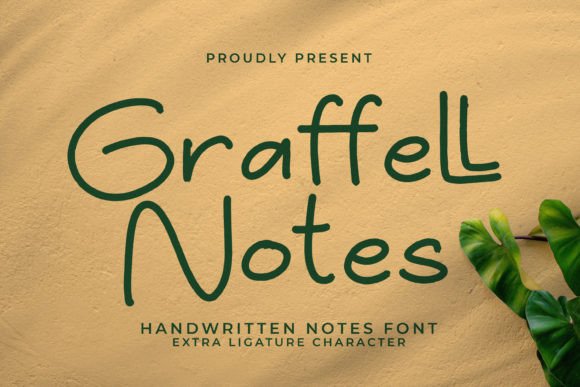
Prepare to embark on an enchanting journey into the world of typography with Graffell Notes: a font so exquisite, it will leave you breathless. This premium handwritten font, meticulously crafted by Integritype Studio, is the epitome of elegance and creativity. Imagine your designs adorned with the grace and allure of Graffell Notes, captivating the hearts of your audience.
With its sweeping strokes and timeless appeal, Graffell Notes is the ideal companion for a myriad of projects. Whether you're crafting logos that exude sophistication, branding that radiates personality, or homeware designs that add a touch of charm, Graffell Notes will elevate your creations to new heights of beauty.
Envision your products adorned with the allure of Graffell Notes, the perfect complement to mugs, quotes, and posters that demand attention. Shopping bags and t-shirts will come alive with the font's captivating presence, while book covers, business cards, and invitation cards will exude an air of refined elegance.
The versatility of Graffell Notes knows no bounds. Its presence enhances photography and watermarks, adding a touch of magic to special events and all your luxury projects. Graffell Notes is the font that sets the stage for unforgettable experiences, transforming ordinary designs into extraordinary masterpieces.
Unleash the limitless possibilities of Graffell Notes and witness the transformation of your creative vision into a breathtaking reality. Immerse yourself in the font's enchanting allure and let your imagination soar to new heights. With Graffell Notes, the possibilities are endless.